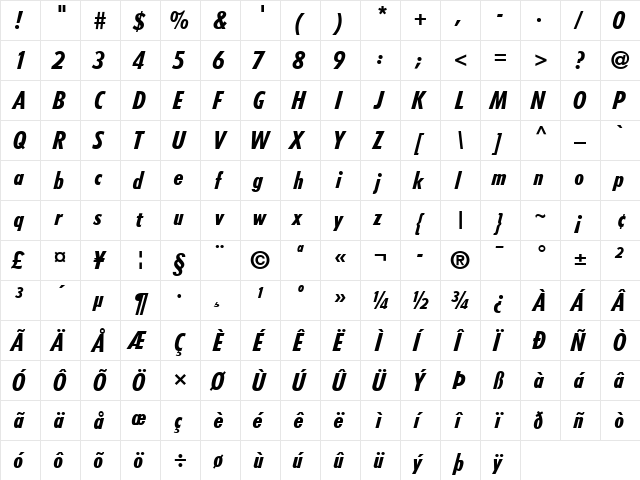
Tempo LT HeavyCondensed Italic Font Preview
Design Context for Tempo LT HeavyCondensed Typeface
Tempo LT HeavyCondensed takes a measured approach to typography — its balanced proportions and neutral character make it a reliable workhorse for both digital and print work. Its italic angle brings a sense of urgency and motion to the letterforms. Its slender proportions lend an understated elegance to any composition. The condensed width makes it efficient for tight spaces without sacrificing legibility.
Pro Tip: Use Tempo LT HeavyCondensed for emphasis, pull quotes, and subheadings where its slanted energy can add rhythm to the layout.